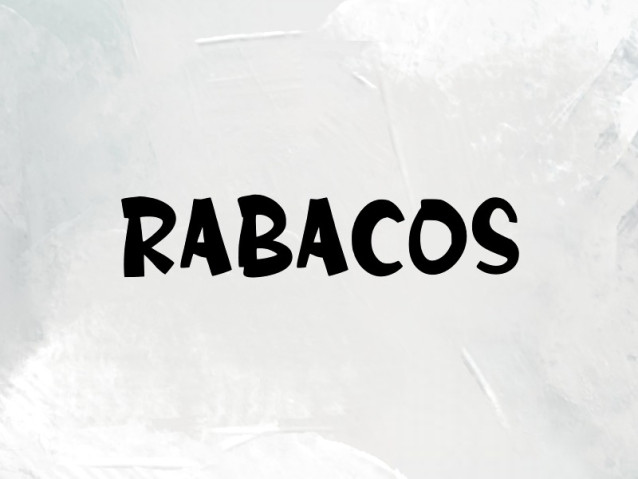
Rabacos Font
Rabacos Font is a simple and modern display font suitable for quotes, logos, headings, titles, and many more. Use it on any of your creative projects, and your designs will become outstanding!